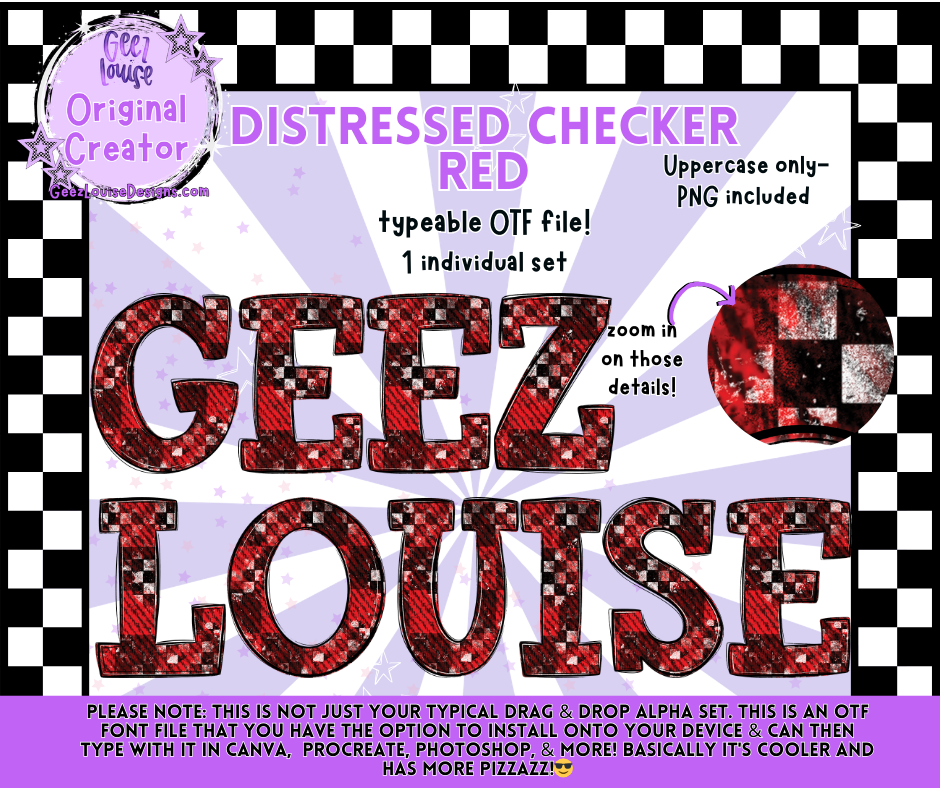
DISTRESSED CHECKER RED — Typeable OTF Alpha Font + PNGs
Meet Distressed Checker Red, your new go‑to for bold, sporty, high‑energy designs. With its gritty checkerboard texture and vibrant red palette, this typeable OTF font brings instant impact to everything from team spirit tees to edgy boutique graphics.
Distressed red checker textures
Sharp, print‑ready details